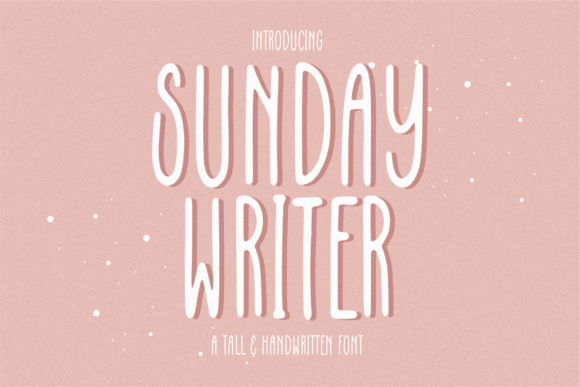
Unleash your creativity with Sunday Writer, the captivating handwritten font that adds a touch of elegance and charm to your designs. Inspired by the beauty of handwritten notes and vintage signage, this display font exudes a timeless appeal that will elevate your projects to new heights.
Step into a world of endless possibilities with Sunday Writer, the perfect font for photography enthusiasts. Its tall, slender characters and graceful strokes bring a touch of sophistication to your images, transforming them into captivating works of art. Whether you're capturing the beauty of nature, the joy of a special occasion, or the essence of a cherished memory, Sunday Writer will elevate your photographs to new heights.
With Sunday Writer, you'll have the perfect font for your product packaging and branding projects. Its distinctive style adds a personal touch that sets your products apart from the competition. Create packaging that speaks to your customers' hearts and leaves a lasting impression, building a strong brand identity that resonates with your audience.
Let Sunday Writer be your muse for magazine layouts and social media posts that captivate your audience. Its elegant lines and playful charm will draw readers in, keeping them engaged and eager for more. Create visually stunning headlines, eye-catching quotes, and captivating stories that leave a lasting impact.
From the joy of a wedding day to the heartfelt expressions of love and gratitude, Sunday Writer is the perfect choice for adding a touch of magic to your special moments. Its flowing script and whimsical style bring a sense of romance and celebration to your invitations, cards, and other wedding stationery, creating memories that will last a lifetime.
With Sunday Writer, you can effortlessly express your thoughts and emotions in a way that resonates with your audience. Its tall, slender characters and graceful strokes add depth and dimension to your words, creating a visual symphony that captivates and inspires. Use Sunday Writer to create stunning quotes, heartfelt messages, and captivating stories that leave a lasting impression.